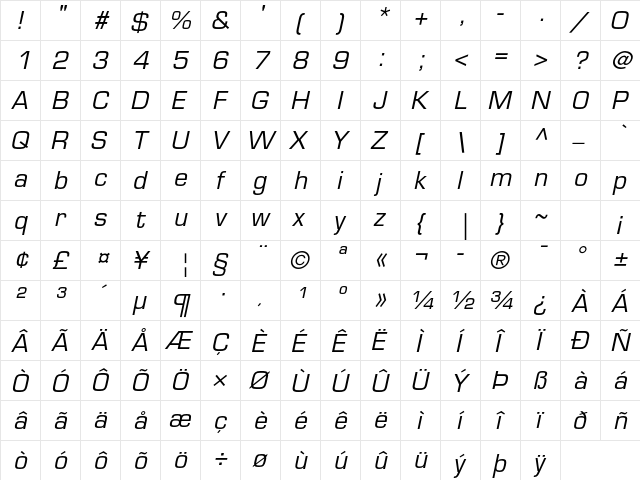
Eurostile LT Std Oblique Font Preview
| Designer | Aldo Novarese, A. Butti |
Design Context for Eurostile LT Std Typeface
Eurostile LT Std takes a measured approach to typography — its balanced proportions and neutral character make it a reliable workhorse for both digital and print work. Its italic angle brings a sense of urgency and motion to the letterforms. Its slender proportions lend an understated elegance to any composition.